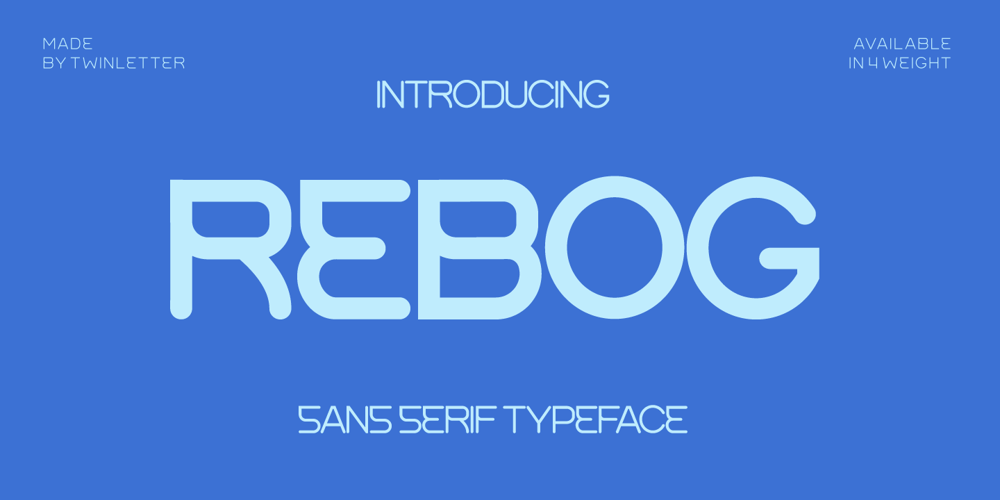
Rebog Font Family was designed by Rozikan and published by Twinletter. Rebog contains 4 styles and family package options. Efrida is a sanserif font family with a sporty and maco feel.Naturally, this typeface will make your diverse projects look attractive, distinct, and flawless. because we created it with great care so that you can use it for a variety of purposes in your amazing projectof course, your various design projects will be perfect and extraordinary if you use this font because this font is equipped with a font family, both for titles and subtitles and sentence text, start using our fonts for your extraordinary projects.